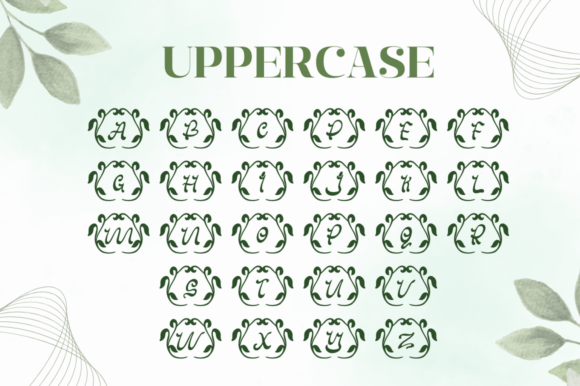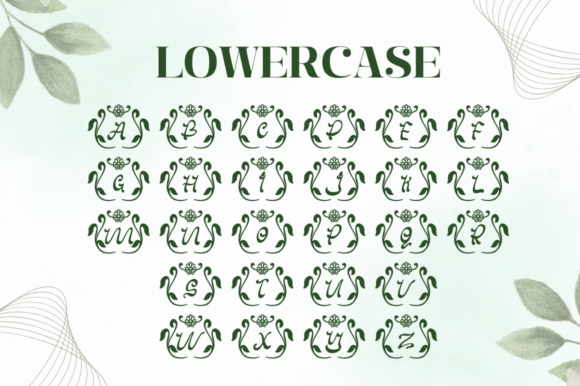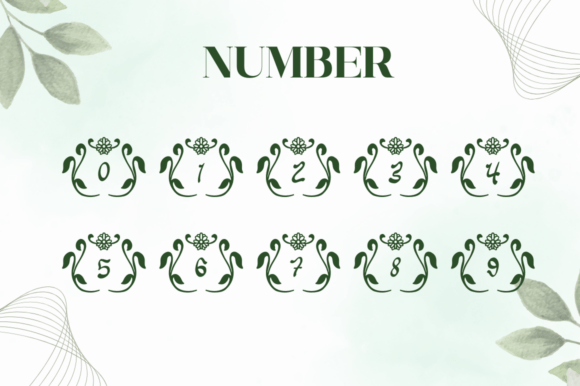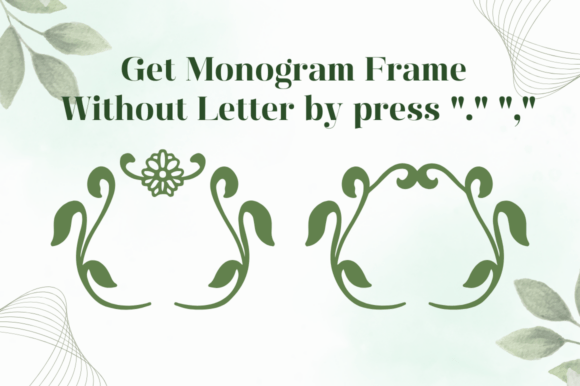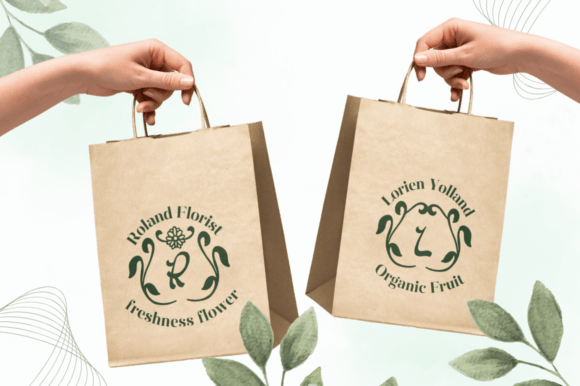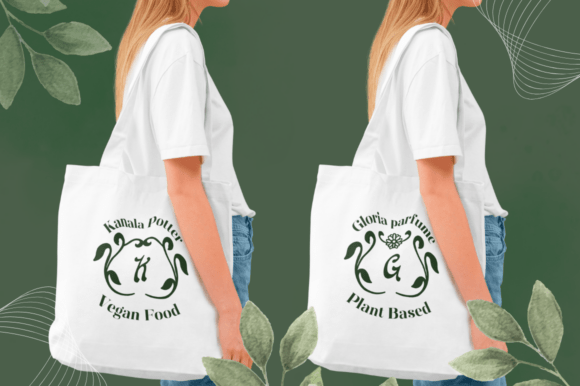
Introduction to Leaf Crown Monogram Font Font
Fonts play a crucial role in design, and the Leaf Crown Monogram Font font is a typeface that brings both character and versatility to any project. Whether you’re working on a branding project, a website, or a print design, the Leaf Crown Monogram Font font offers a unique style that can elevate your work.
Leaf Crown Monogram is a nature-inspired monogram typeface built with flowing leaf scrolls and organic crowns.
The set includes uppercase, lowercase, and numerals plus coordinated leafy monogram frames for instant one-letter marks Need a frame without a letter.
Key Features of Leaf Crown Monogram Font Font
Why Choose Leaf Crown Monogram Font Font?
The Leaf Crown Monogram Font font is more than just a typeface – it’s a design tool that helps you communicate your message with style and clarity. Its unique character set and versatile design make it suitable for a wide range of applications, from elegant invitations to bold headlines.
With its carefully crafted letterforms and balanced proportions, the Leaf Crown Monogram Font font ensures readability and visual appeal across all mediums.
What makes Leaf Crown Monogram Font font special?
The Leaf Crown Monogram Font font stands out with its unique design, exceptional readability, and versatility across various design applications.